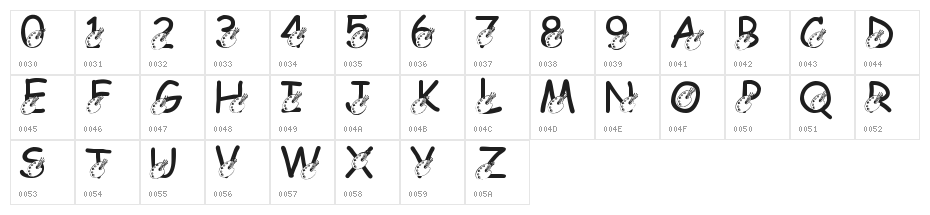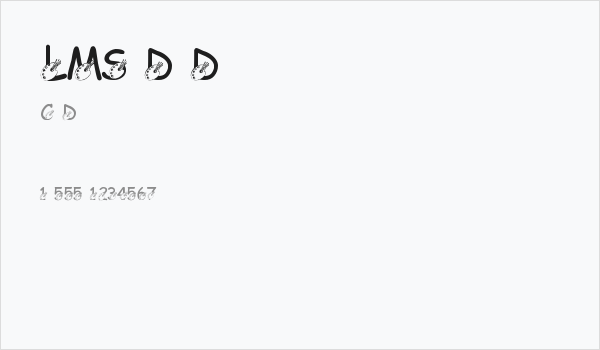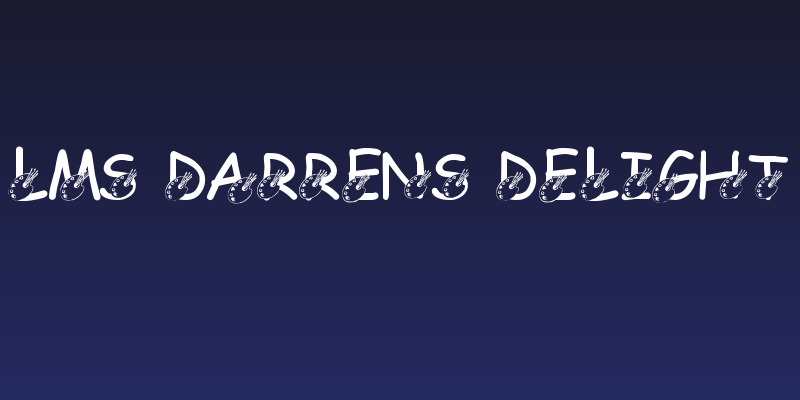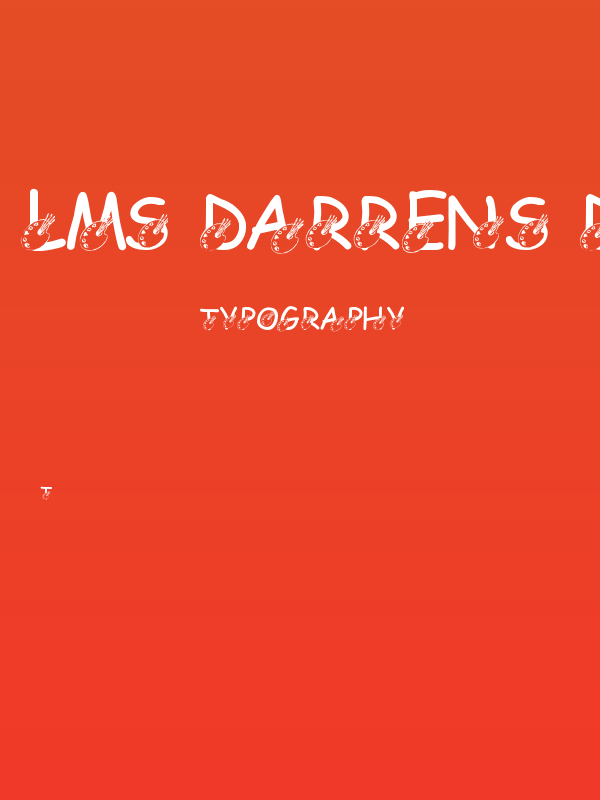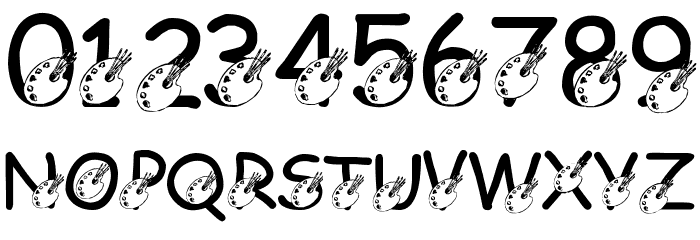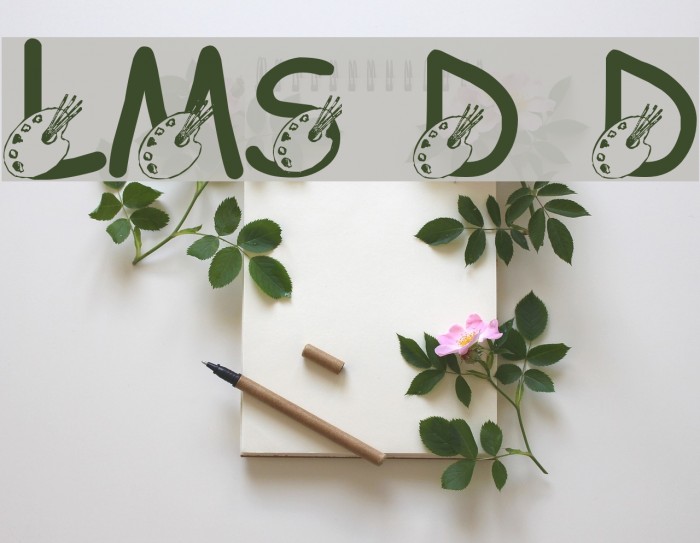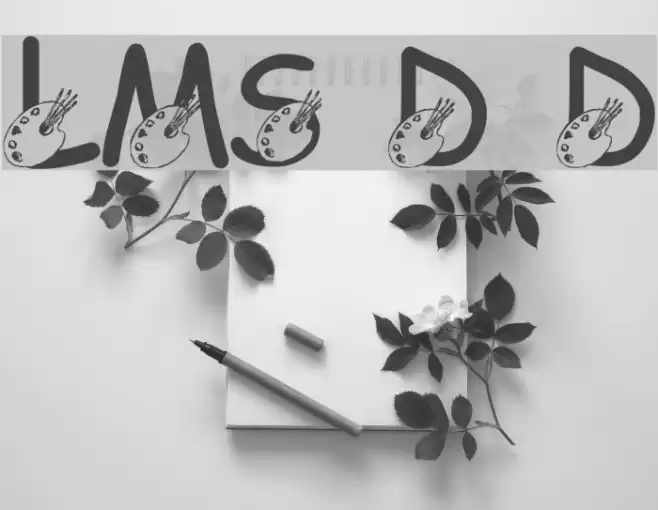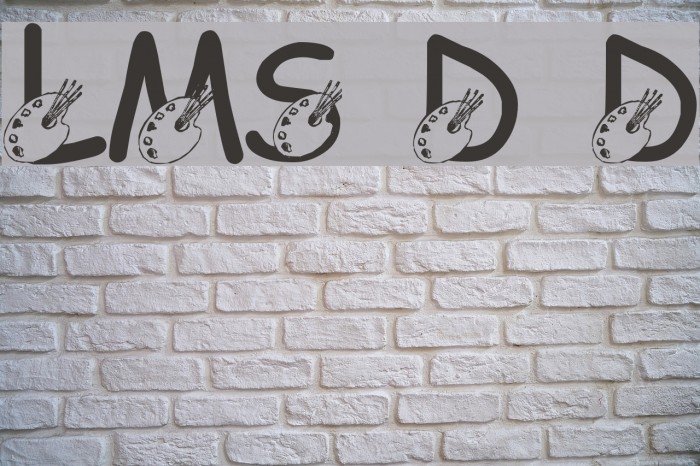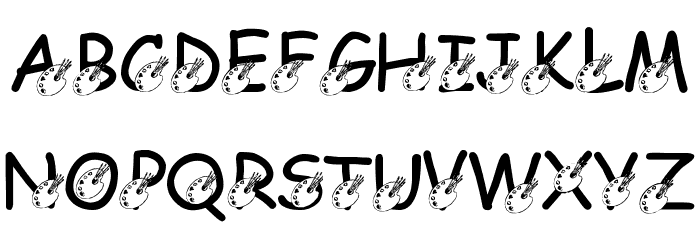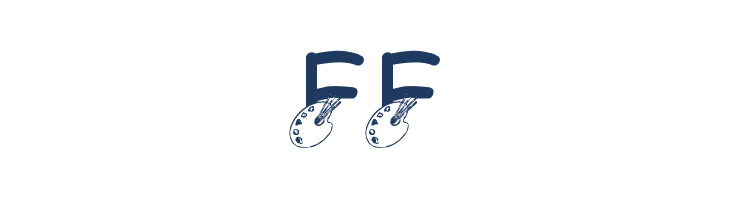
LMS Darren's Delight Font
This playful and artistic font features a unique design where each character is accompanied by a small, detailed artist's palette. The letters are bold and slightly slanted, giving a dynamic and creative feel. The combination of the bold strokes and the intricate palette design makes it stand out as a decorative choice. The font maintains a consistent style across uppercase, lowercase, and numeric characters, ensuring a cohesive look. Its whimsical nature makes it ideal for projects that require a touch of creativity and fun.
| Proposed Projects | Ideal for art-related branding, children's book covers, creative event posters, and playful merchandise designs. |